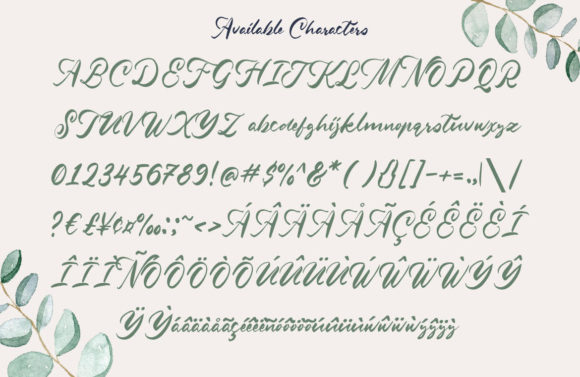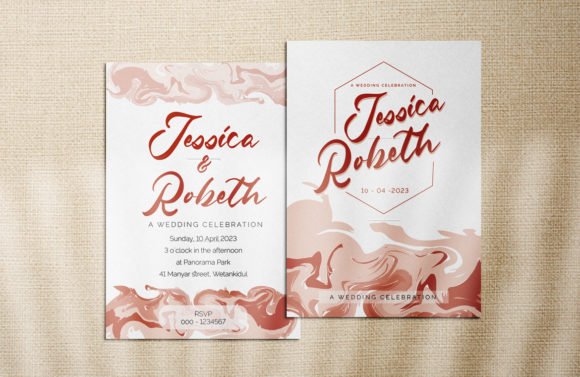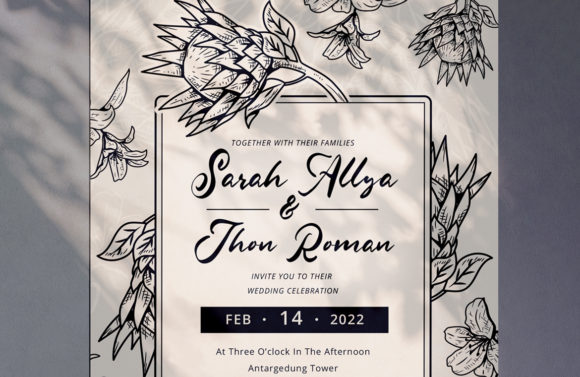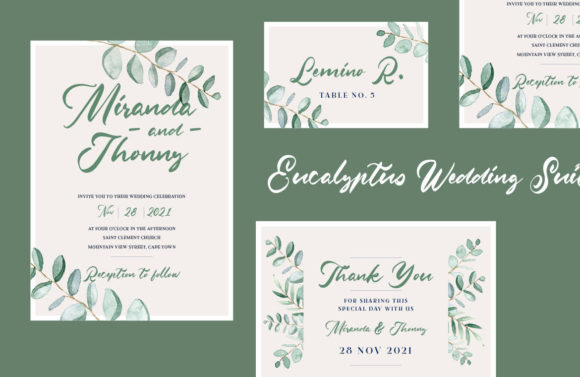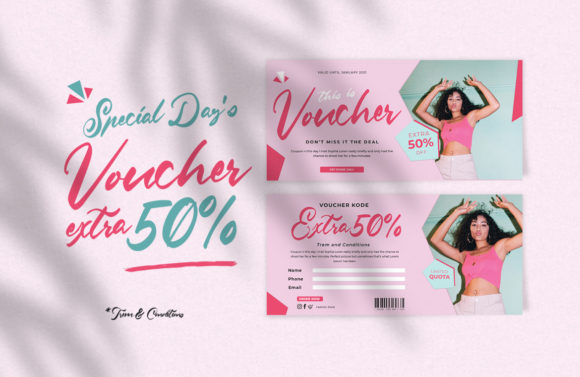
Introduction to Mehtan Font
Remember that moment when you’re brainstorming ideas for your next creative project and you stumble upon the perfect font to bring it all together? For designers, finding the right font can be the game-changer that elevates your work from good to great. And that’s exactly what Mehtan Font does – it’s the perfect blend of warmth, romance, and playfulness that adds a personal touch to any design.
As a valuable design resource, Mehtan Font offers endless possibilities for creative expression. Its high-quality, handwritten style is perfect for projects that require a human touch, from wedding invitations to blog posts. And the best part? This beautiful font is available for free download, making it an accessible choice for designers of all levels.
Honest Review: Mehtan Font
I recently stumbled upon the Mehtan Font and I’m excited to share my thoughts with you. As a designer, I’m always on the lookout for high-quality design resources to elevate my creative projects.
One of the standout features of the Mehtan Font is its unique and stylish design. The font is perfect for adding a touch of sophistication to your designs, whether it’s a logo, brochure, or website.
- Unique and stylish design
- Perfect for creative projects that require a touch of sophistication
Overall, I’m impressed with the Mehtan Font. While it has some limitations, its unique design and free download make it a valuable resource for designers. I’d definitely recommend it for anyone looking to add a touch of elegance to their creative projects.
Use the Mehtan Font in conjunction with other design elements to create a visually appealing design. Experiment with different font sizes and styles to add depth and interest to your project. The Mehtan Font is a versatile design resource that can be used in a variety of creative projects.
The Mehtan Font is commonly used in creative projects such as logo design, branding, and marketing materials. It’s also used in presentations and documents where a high-quality font is needed. The Mehtan Font is a great resource for designers who need a professional-looking font for their projects.